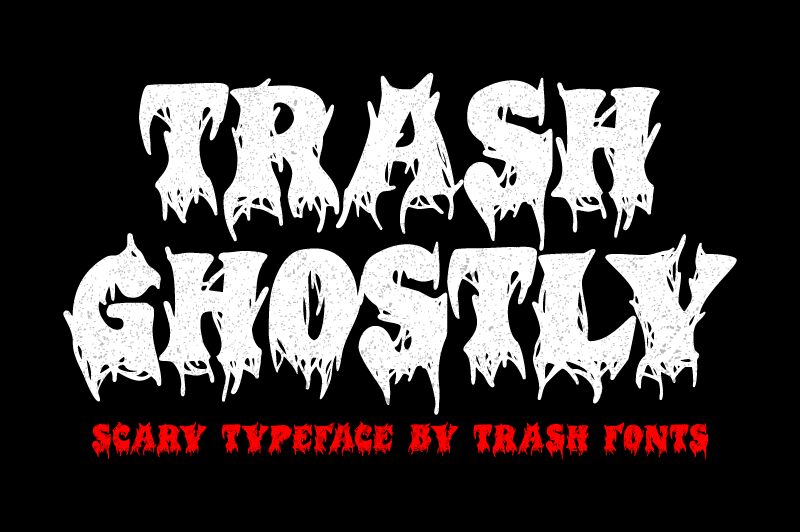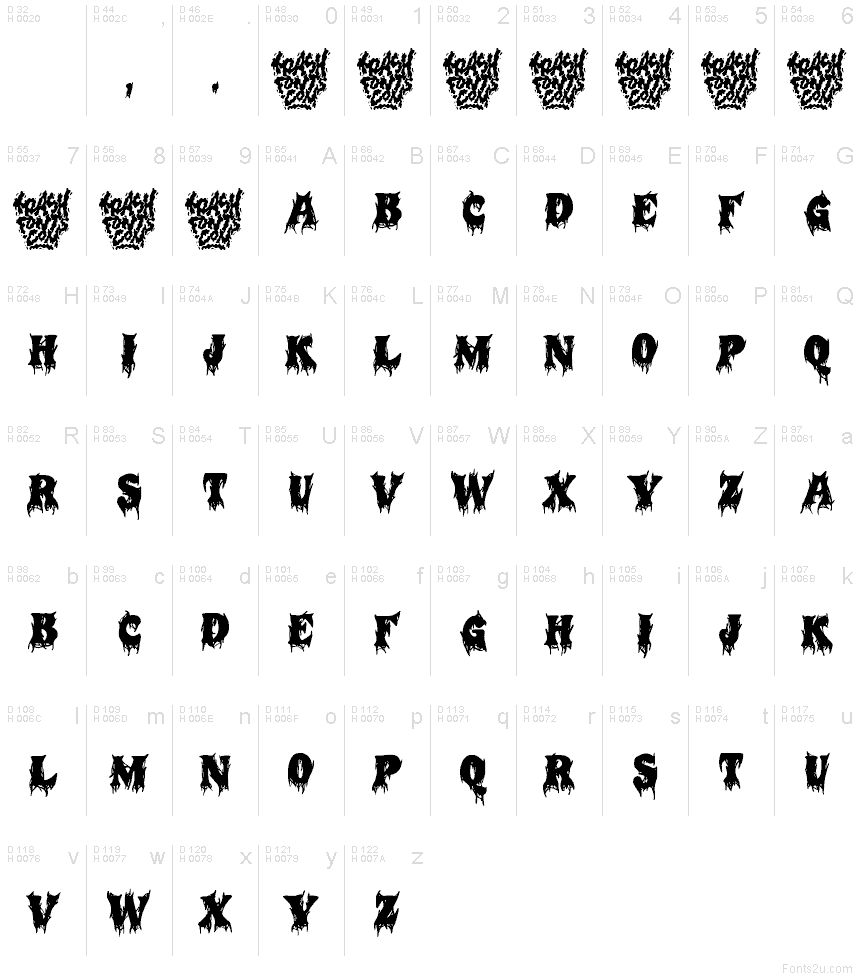
Trash Ghostly DEMO
Trash Ghostly font by Trash Fonts is a scary bold display grungy typeface that mimics the style of a liquid writing that drips like blood. The visual combines a Gothic inspiration with modern smooth and crisp shapes for an overall diverse creativity. Trash Ghostly has irregular outlines and angles appearing jagged with distressed textures.